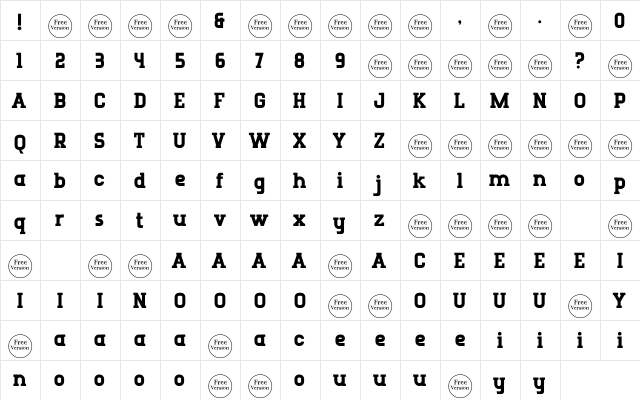
Runboy Free Trial Regular
Design Context for Runboy Free Trial Typeface
Runboy Free Trial offers clean, dependable letterforms without strong stylistic allegiance, making it a practical choice for designers who need flexibility.